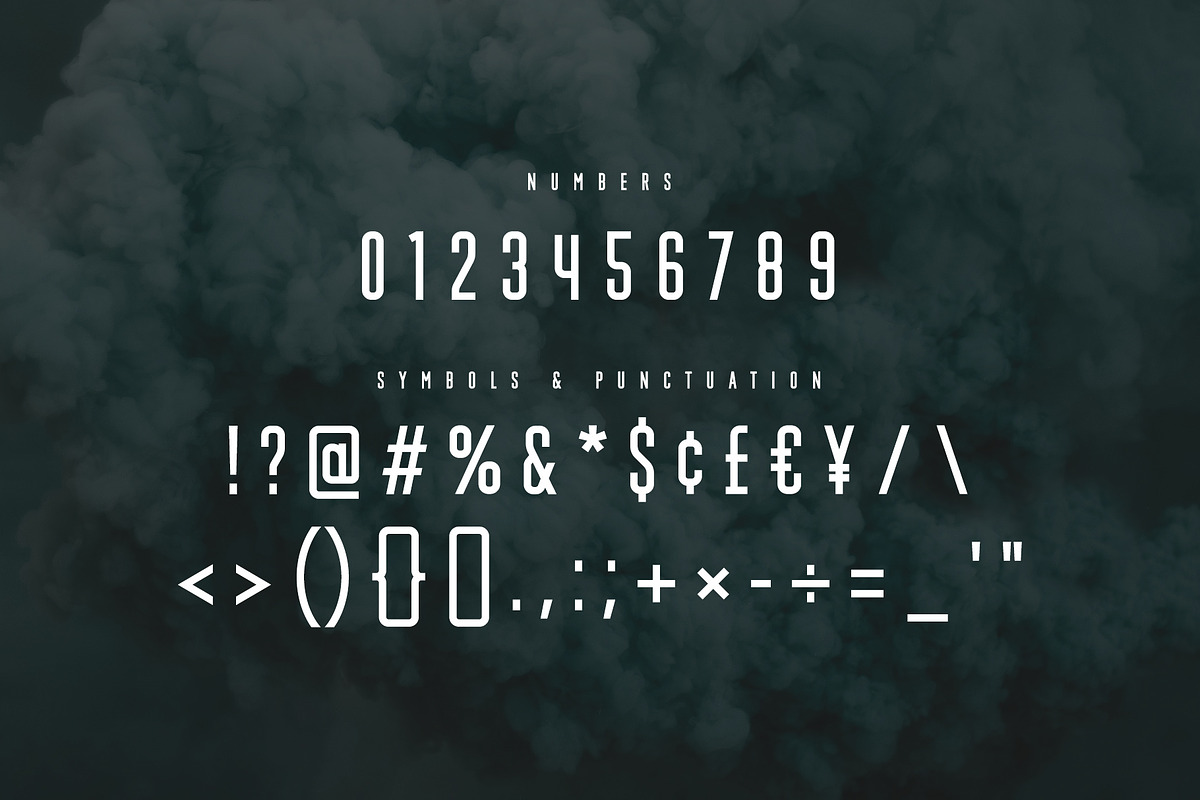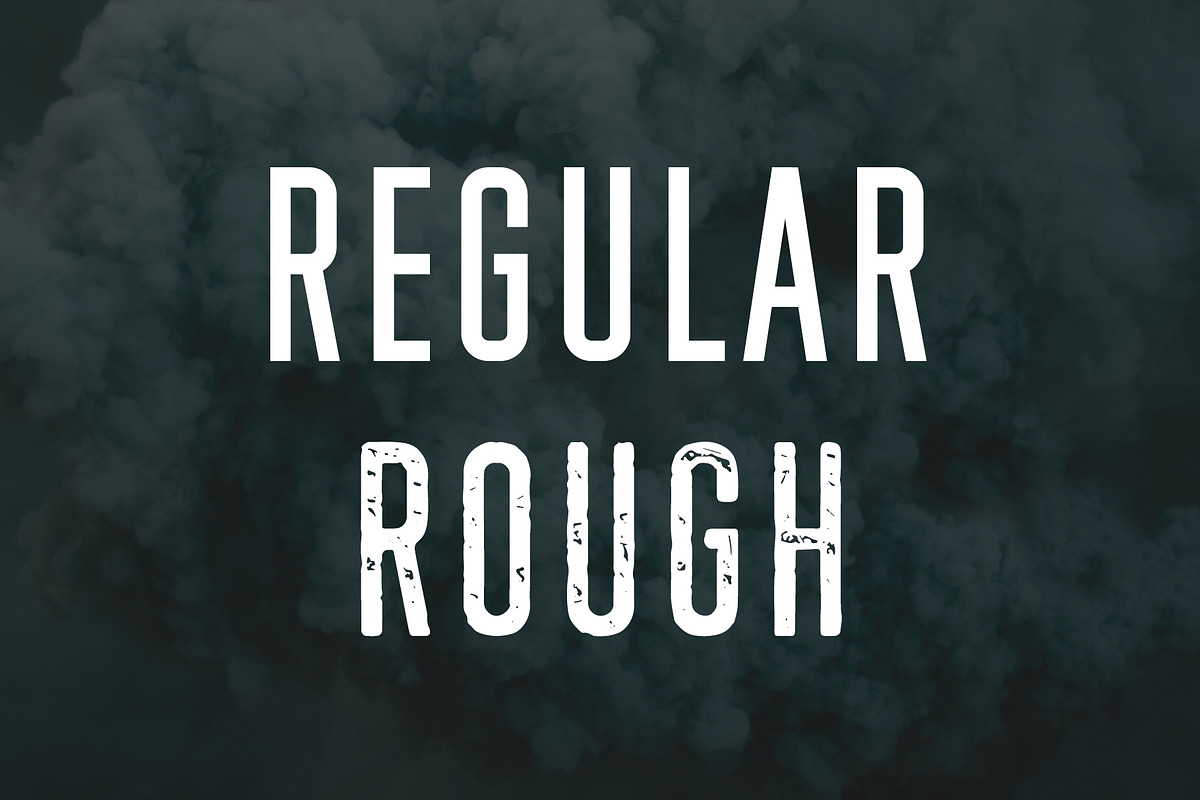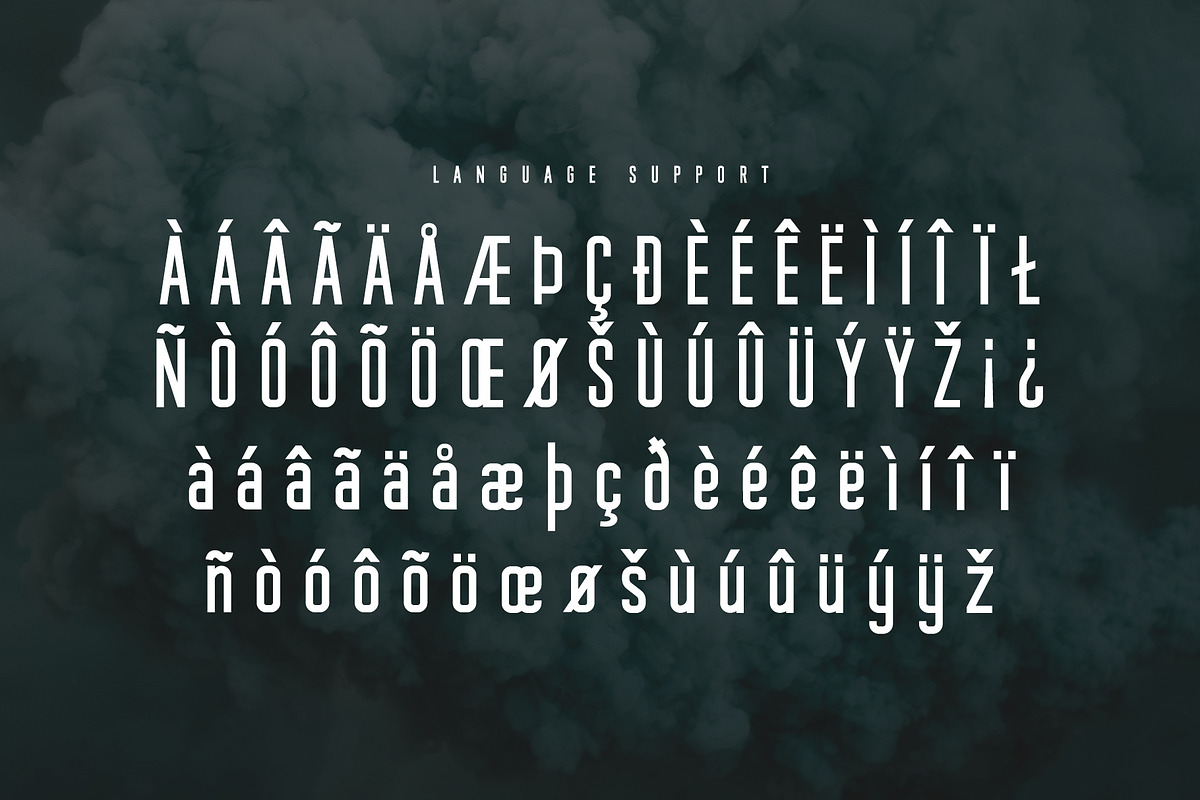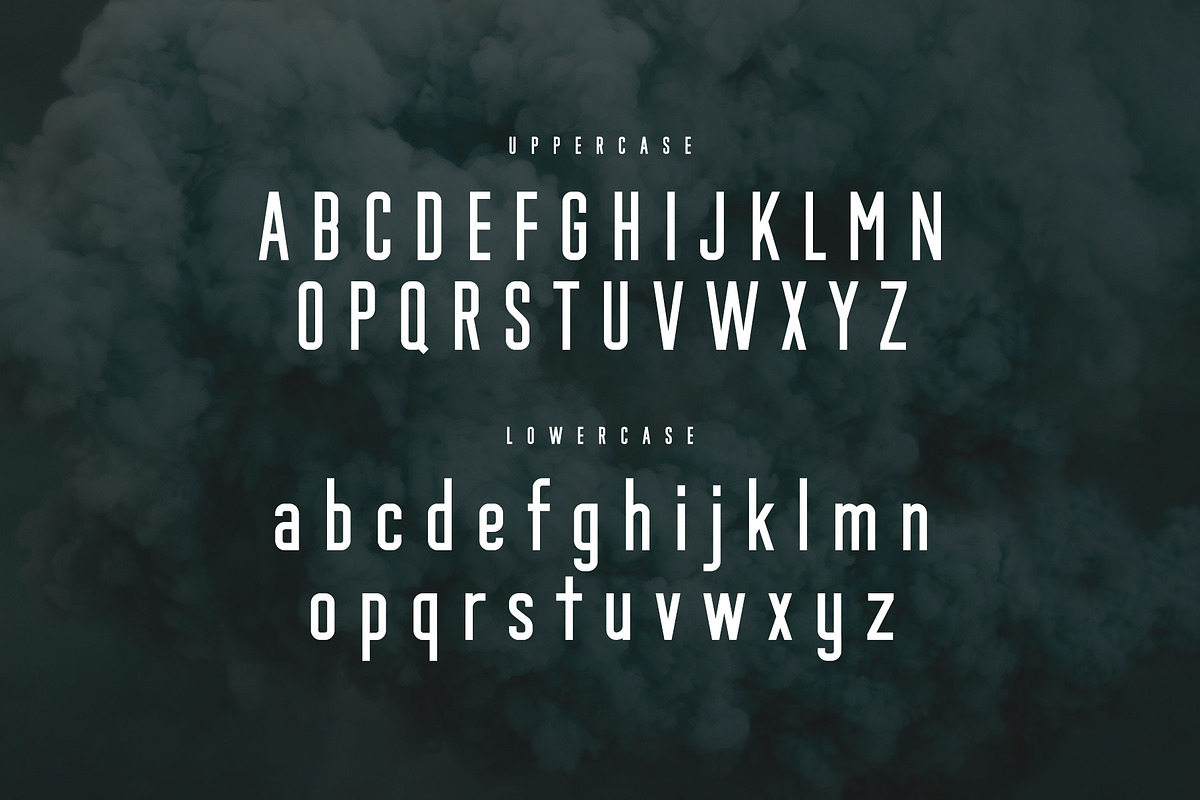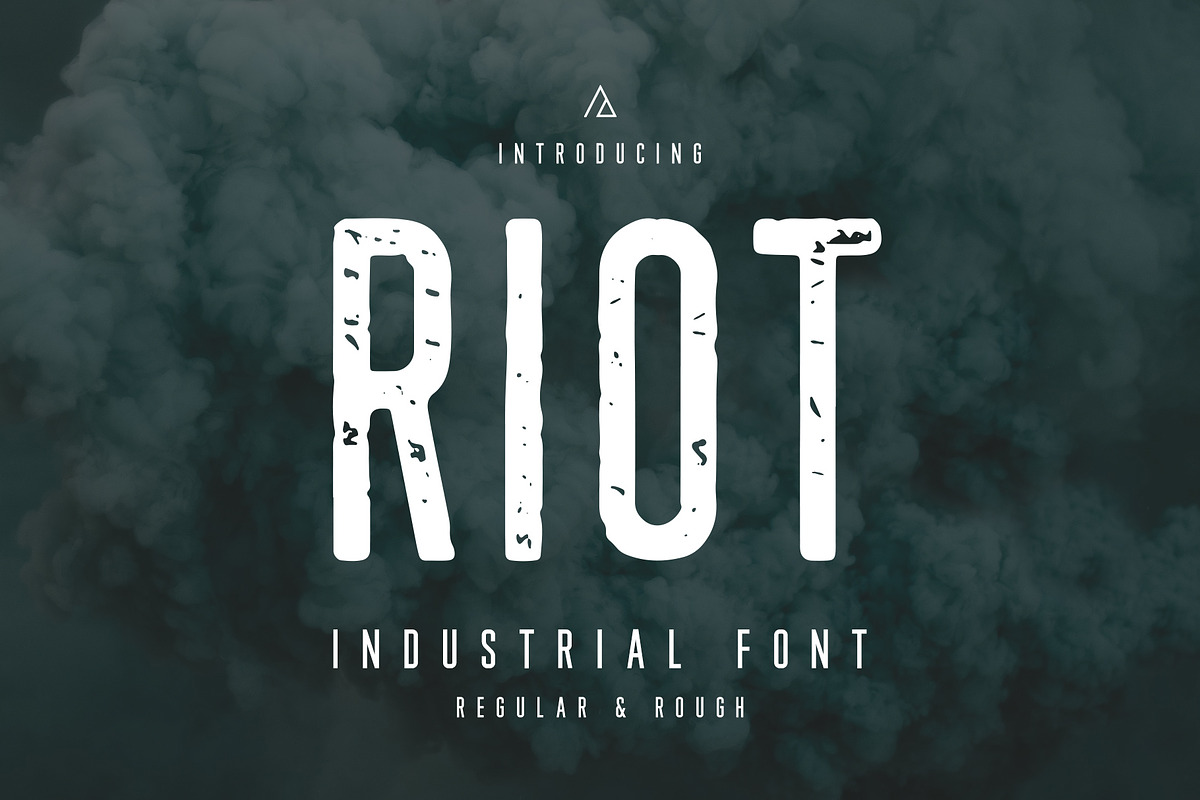
Riot - Industrial Font
Riot is a tall, condensed sans-serif typeface which takes inspiration from industrial signage. It is uniform, easy to read and makes a strong statement. Riot also has subtle rounded corners, to make it less harsh and imposing than many industrial fonts. It is ideal for headlines, logos and signs.
- All uppercase letters
- All lowercase letters
- Numbers 0-9
- Most common symbols and punctuation
- European language support
- Regular & Rough